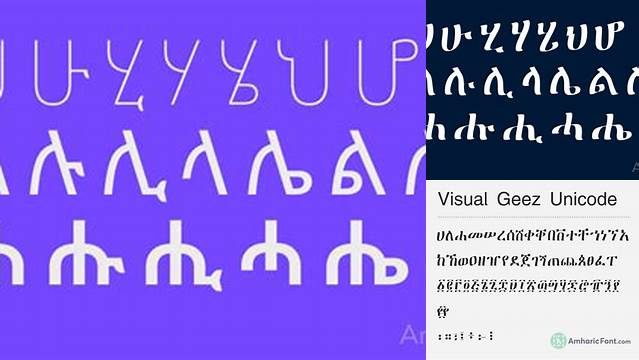
Introduction to Geez Amharic Font
When we talk about Geez Amharic fonts, we're diving into the world of one of the oldest writing systems still in use today. For those not in the know, Geez is an ancient script that's used for several languages in Ethiopia and Eritrea, including Amharic, Tigrinya, and Tigre. It’s a beautiful and unique script, and having it on your Windows 10 computer can be super useful, especially if you're dealing with documents, websites, or anything else in these languages. So, if you're looking to download Geez Amharic font for Windows 10 for free, you’re in the right place! Understanding the importance of this font goes beyond just having the ability to read and write in Amharic. It's about connecting with a rich cultural heritage and ensuring that digital communication is accessible to everyone. For many users, this is a critical tool for both personal and professional use. Imagine trying to read a document or visit a website without the proper font – it’s like trying to listen to music with broken headphones. You miss out on the full experience and the intended message. In this article, we’ll explore why having a Geez Amharic font on your computer is essential, where you can find reliable sources for free downloads, and how to install these fonts on your Windows 10 system. We'll also touch on some common issues you might encounter and how to troubleshoot them. By the end of this guide, you’ll have everything you need to ensure your computer is fully equipped to handle Geez Amharic script. Let’s jump in and get your system set up with these fantastic fonts!
Why You Need Geez Amharic Font on Windows 10
Why exactly do you need a Geez Amharic font on your Windows 10 system? Well, there are several compelling reasons. First off, if you're someone who speaks or works with Amharic, Tigrinya, or other languages using the Geez script, having the correct font is crucial for reading and creating documents. Without the font, the characters might show up as boxes or unreadable symbols, which can be super frustrating. Think of it like trying to read a secret code – unless you have the decoder ring (in this case, the font), you’re out of luck. Beyond personal use, the importance of Geez Amharic fonts extends to professional environments as well. Businesses that operate in regions where these languages are spoken, or those that serve communities that use them, need to ensure their communications are clear and accurate. This includes everything from websites and marketing materials to official documents and customer service interactions. Imagine a company trying to reach its Amharic-speaking customers with promotional content that’s riddled with font errors – it’s not just ineffective, it can also come across as unprofessional. Moreover, having the Geez Amharic font on your computer opens up a world of cultural and educational resources. Many historical texts, religious documents, and literary works are written in Geez script. Being able to access and read these materials in their original form can provide invaluable insights and understanding. It's like having a direct line to the past, allowing you to explore the richness and depth of these cultures firsthand. From a technological perspective, ensuring your system supports Geez Amharic script contributes to digital inclusion. It means that more people can participate fully in the digital world, regardless of the language they speak or the script they use. This is especially important in an increasingly interconnected world where access to information and communication tools is essential for social and economic participation. So, whether you're a student, a professional, or simply someone with an interest in languages and cultures, downloading Geez Amharic font for Windows 10 is a smart move. It enhances your ability to communicate, learn, and engage with the world around you.